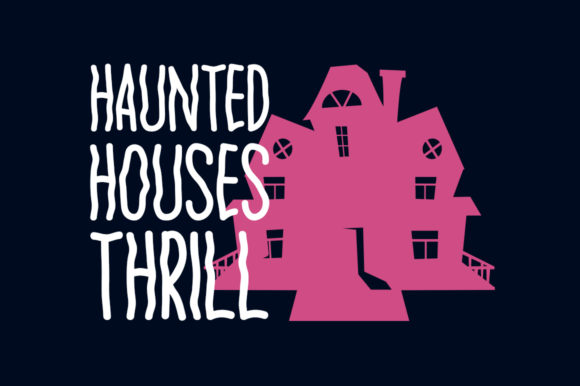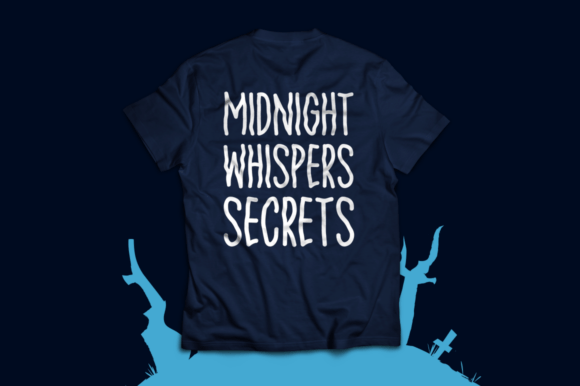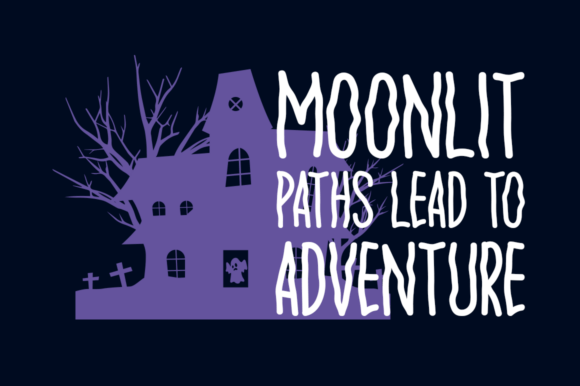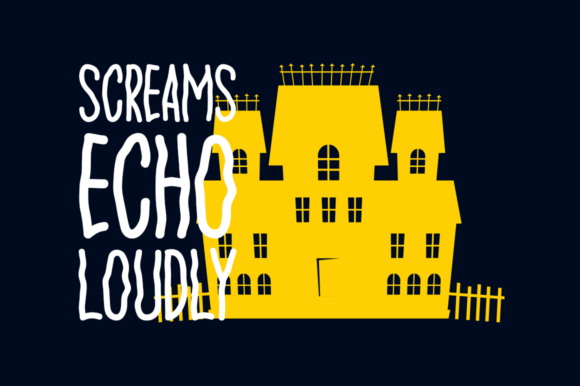
Ghostly Greetings Font: Add a Touch of Spooky Charm to Your Designs
As the spookiest time of the year approaches, designers and crafters are on the lookout for fonts that can add a touch of eerie elegance to their creations. If you’re searching for a font that embodies the spirit of Halloween, look no further than Ghostly Greetings. This unique display font is perfect for a wide range of applications, from stationery and logos to t-shirts and print materials.
What Makes Ghostly Greetings Stand Out?
Ghostly Greetings stands out from the crowd with its whimsical design, which is both playful and spooky. The font’s distinctive style is ideal for creating eye-catching designs that are sure to grab attention. Whether you’re designing website headers, photo frames, or flyers, Ghostly Greetings adds a touch of spooky charm that will leave a lasting impression.
One of the best things about Ghostly Greetings is its versatility. This font can be used for a wide range of creative projects, including:
- Music Covers: Add a touch of spooky elegance to your music covers with Ghostly Greetings.
- Posters: Create eye-catching posters for Halloween events, haunted houses, or spooky movie nights.
- Image Sliders: Use Ghostly Greetings to add a touch of eerie charm to your image sliders.
- Stationery: Create spooky stationery, including invitations, greeting cards, and letters.
- Logos: Use Ghostly Greetings to create a unique and memorable logo for your business or brand.
- T-Shirts: Design spooky t-shirts, hoodies, and other apparel with Ghostly Greetings.
- Print Materials: Use Ghostly Greetings for a wide range of print materials, including flyers, brochures, and posters.
Why Choose Ghostly Greetings?
There are many reasons why designers and crafters should choose Ghostly Greetings for their projects. Here are just a few:
- Unique Design: Ghostly Greetings has a unique and distinctive design that will set your projects apart from the crowd.
- Versatile: This font can be used for a wide range of creative projects, making it a great addition to any designer’s toolkit.
Tips for Using Ghostly Greetings
Here are a few tips for using Ghostly Greetings in your designs:
- Experiment with Different Sizes: Ghostly Greetings looks great in a variety of sizes, so don’t be afraid to experiment and find the perfect size for your project.
- Pair with Other Fonts: This font pairs well with a variety of other fonts, so try combining it with different fonts to create a unique look.
- Use for Headlines: Ghostly Greetings is perfect for headlines and titles, so use it to add a touch of spooky charm to your designs.
- Add Effects: Consider adding effects, such as shadows or outlines, to give your text a spooky glow.